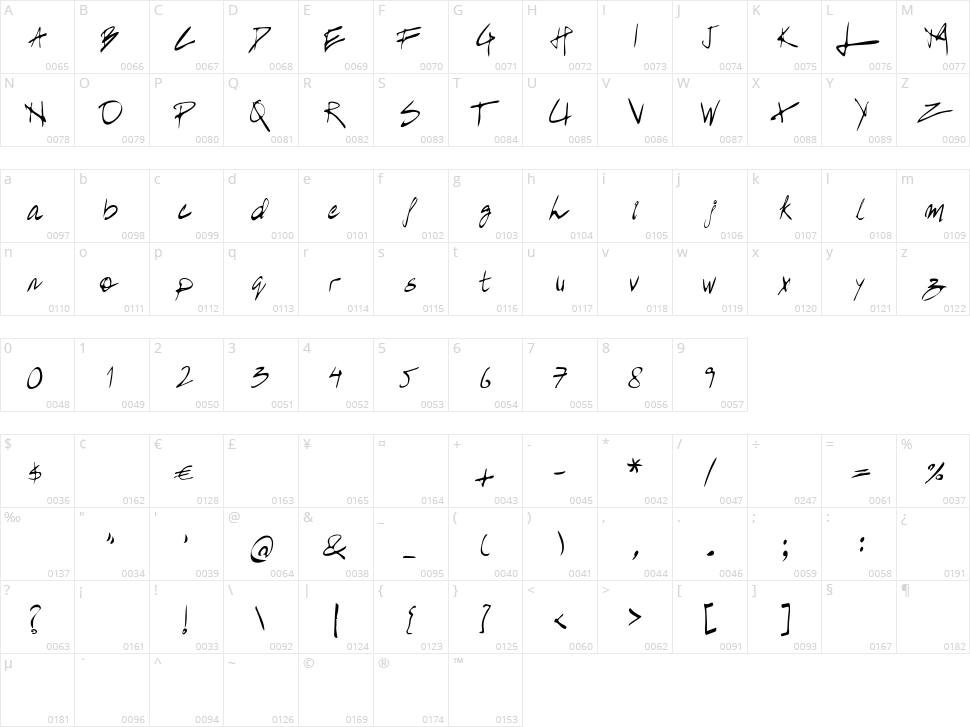
Rough Mira
Presenting, Latin version of Mira typeface font family.
Originated during typeface design of Manipuri language, Meitei Mayek, named as Meitei Mira.
Designer Name: Is a Day